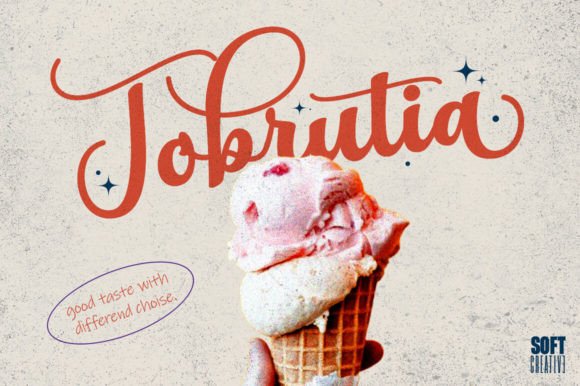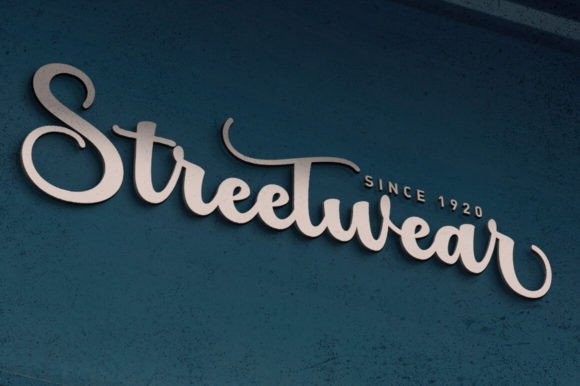
Himalaya Script Font
Introducing Himalaya Script, a delicate calligraphic font often used to attract attention and evoke feelings of nostalgia, fondness and warmth. With its luxurious swirls, it brings a fun and light tone, with sweeping curves and flourishes, to add a vibrant and cheerful feel to your projects.